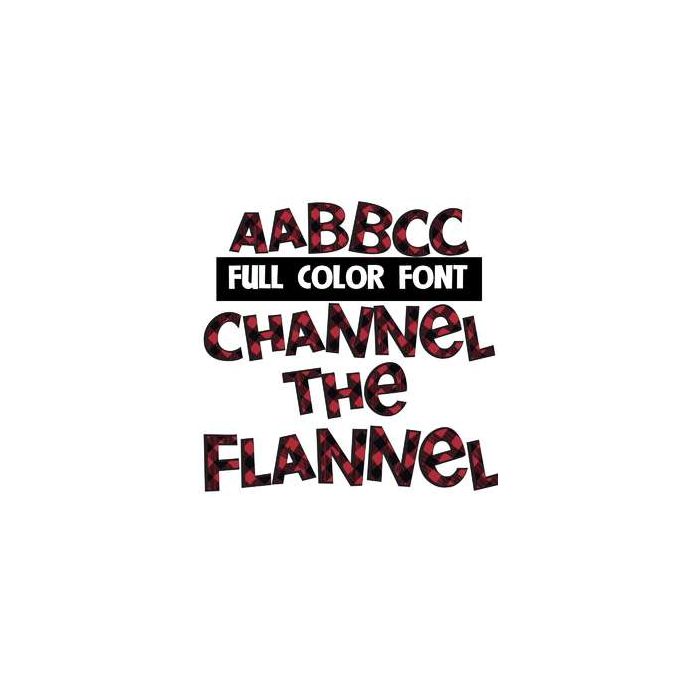
This full-color font looks like large, red buffalo plaid. This font works best for titles, displays, posters and more. Please note color fonts will show as black in non compatible programs. This font type is compatible with Silhouette Studio.